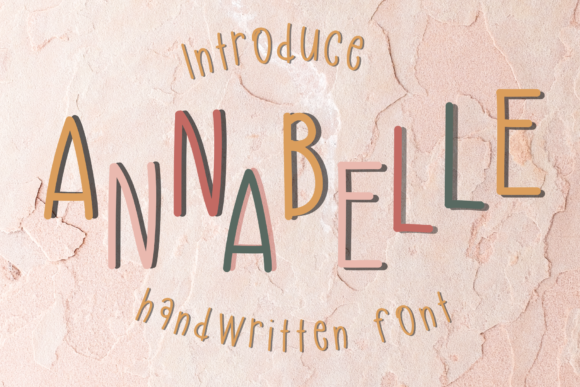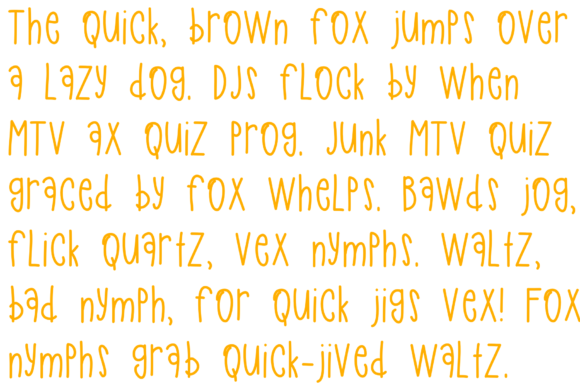
Annabelle Font
About Annabelle Font
Annabelle is a cute and quirky handwritten font. It will add an incredibly joyful touch to your designs. Add this beautiful font to each of your creative ideas and notice how it makes them stand out!